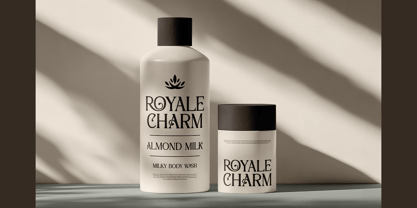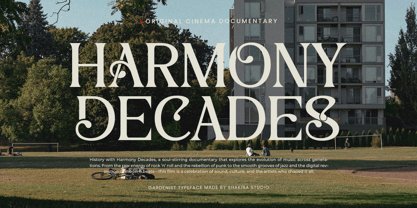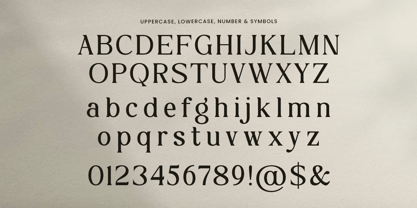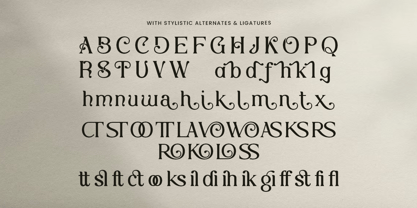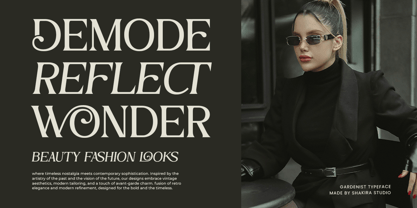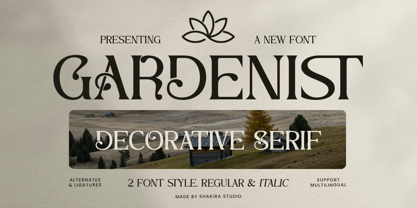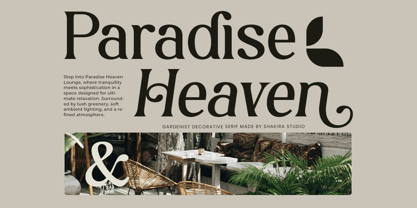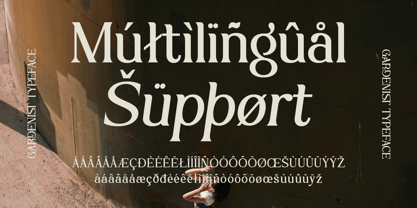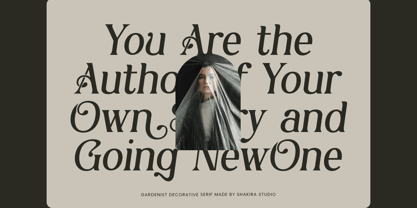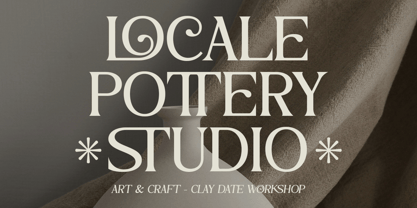
Gardenist
The Gardenist Font Family was designed by Idhham Cholid Rikzano Yahya and published by Shakira Studio. Gardenist contains 2 styles and family package options. More about this family
Gardenist – Decorative Serif Font for Elegant & Versatile Designs
Gardenist is more than just a font – it's a beautifully crafted decorative serif typeface that blends ornamental elegance with modern functionality. Featuring both regular and italic versions along with stylish alternates and ligatures, this font offers unparalleled creative flexibility for your design projects.
Where Ornamental Beauty Meets Modern Utility
Gardenist stands out with its intricate decorative elements and flowing serifs, providing endless possibilities for creating distinctive branding, memorable logos, eye-catching packaging, and stunning posters. The carefully designed alternates and ligatures allow you to customize each project with unique typographic flourishes.
Ornamental Serif Design – Perfect for elegant branding, packaging, and editorial projects
Regular & Italic Versions – Double the creative options for your designs
Stylish Alternates & Ligatures – Create custom typography with decorative flourishes
Versatile Application – Works beautifully for both digital and print media
Multilingual Support – Includes comprehensive language support for global projects
Transform Your Designs with Gardenist
Gardenist elevates ordinary text into extraordinary typographic art. Whether you're designing luxury branding, sophisticated packaging, or elegant invitations, this font adds that special decorative touch that makes your work stand out.